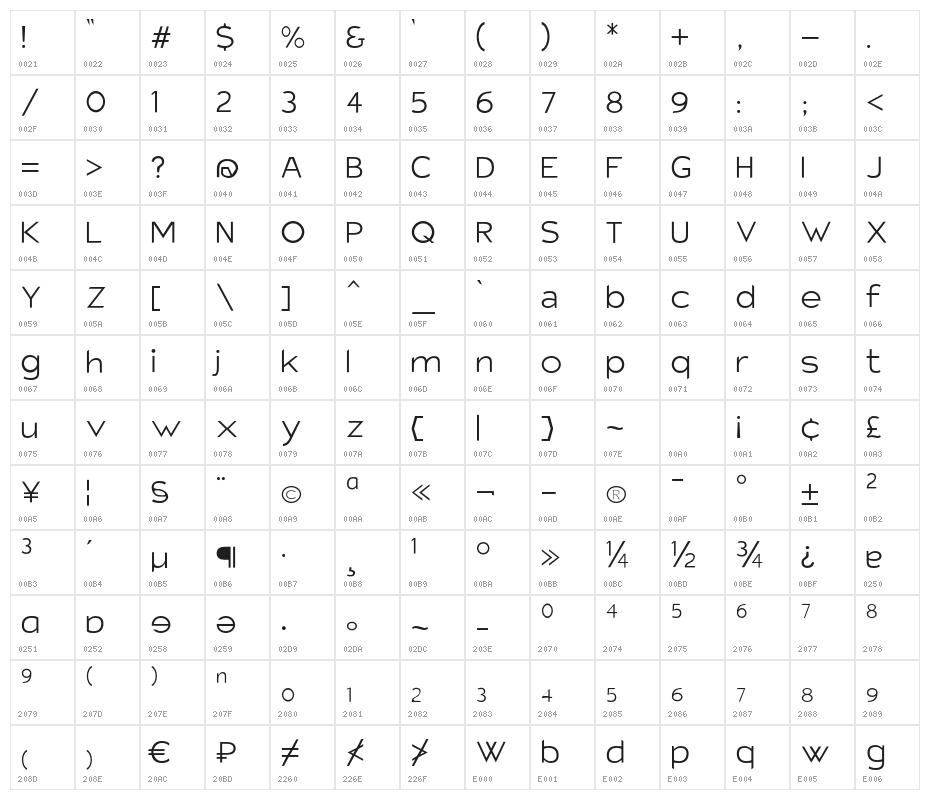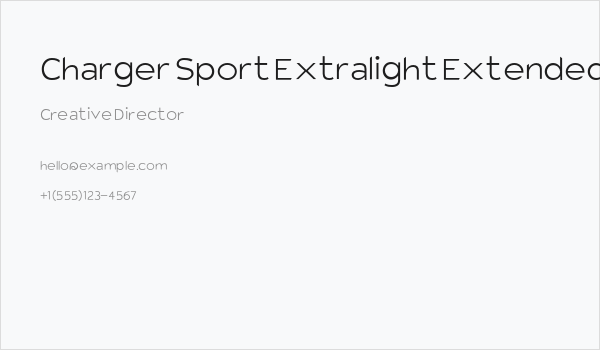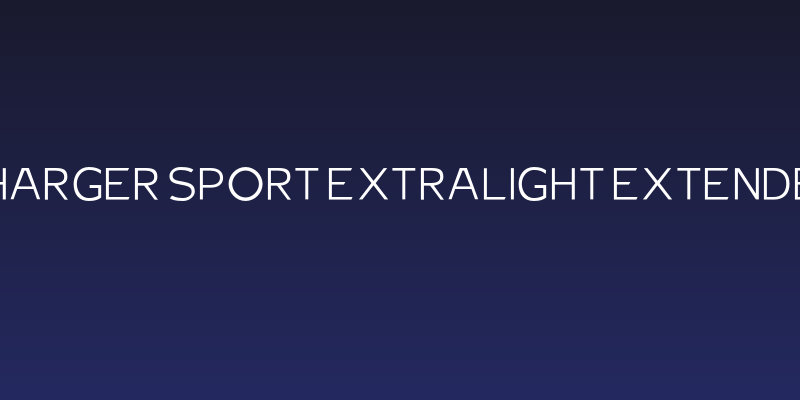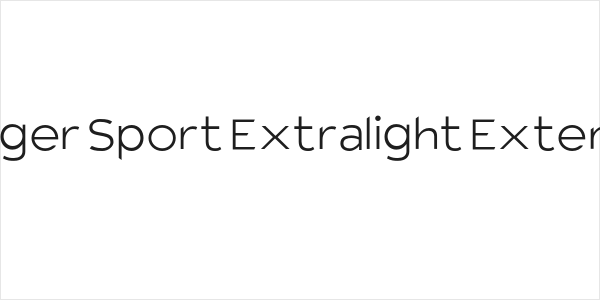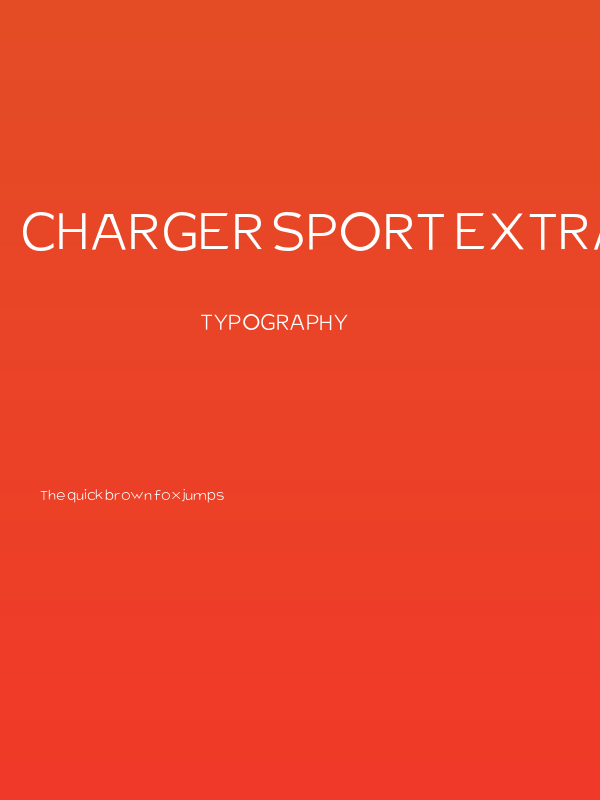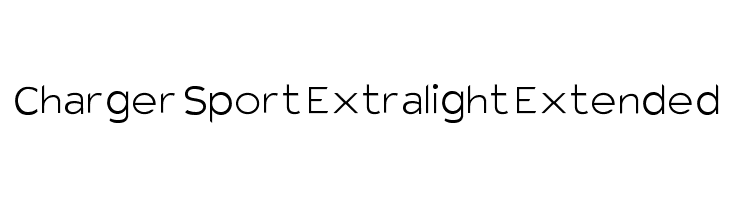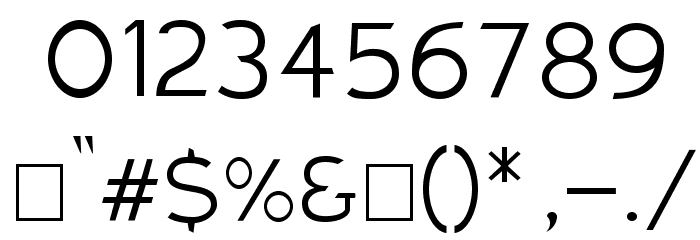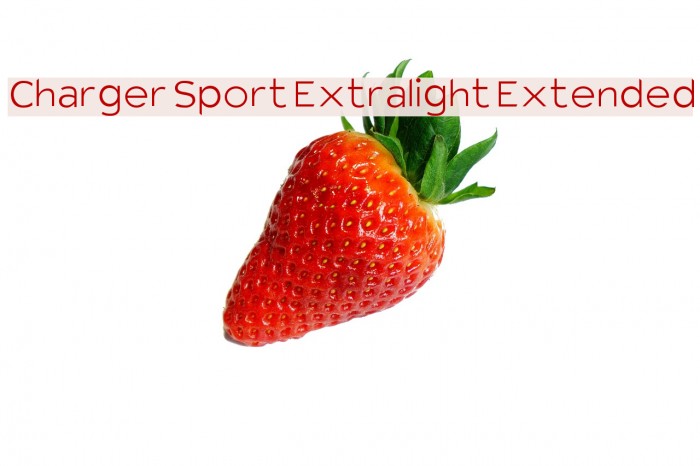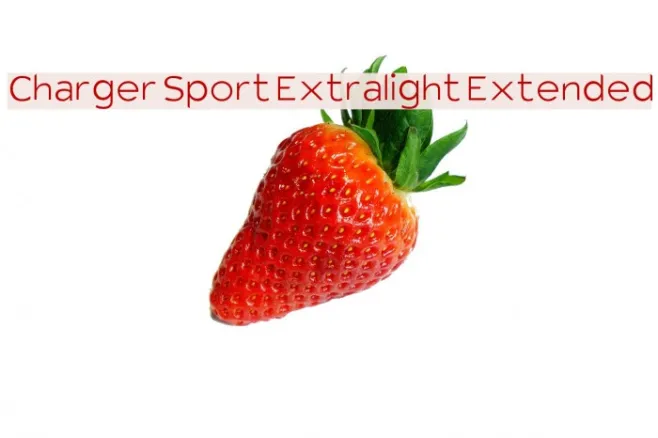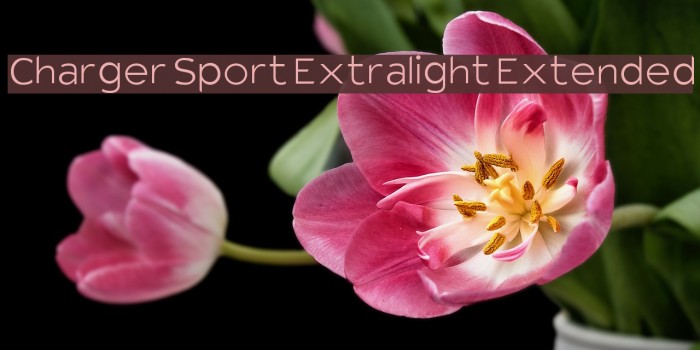
Charger Sport Extralight Extended Font
Charger Sport Extralight Extended Description
This font showcases a sleek and modern design with clean lines and a geometric structure. The characters are well-balanced, featuring a uniform stroke width that contributes to its contemporary appearance. The uppercase letters are bold and assertive, while the lowercase letters maintain a consistent flow with rounded edges. Numbers are clear and easy to read, making them suitable for various applications. The special characters are distinct and maintain the overall aesthetic of the font. Its extended width gives it a spacious feel, enhancing readability and making it ideal for display purposes.
| Proposed Projects | Ideal for branding projects, modern web design, advertising, and editorial headlines. |